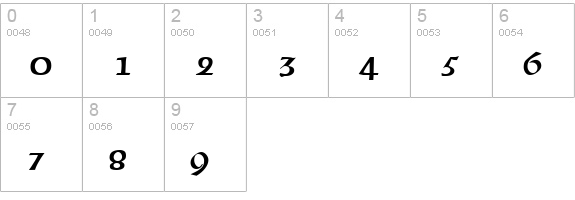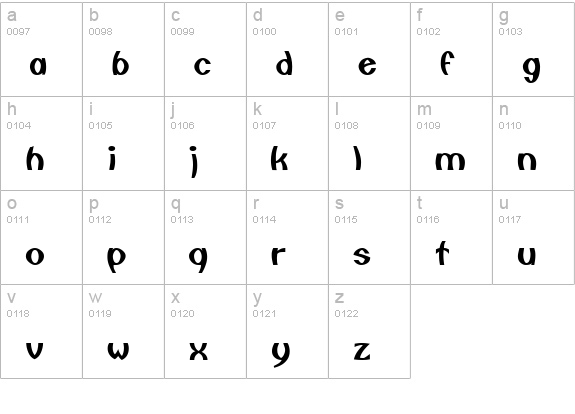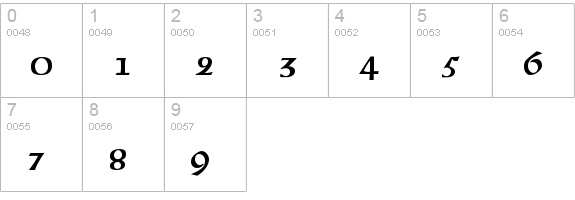
Copacabana Font Details
Copacabana font is a stylish and versatile typeface that exudes elegance and sophistication. With its clean lines and modern aesthetic, this font is perfect for a wide range of design projects, from branding to editorial design. Its sleek and contemporary look makes it ideal for creating eye-catching headlines, logos, and posters. What sets Copacabana font apart is that it is available for free download at FontsMarket.com. This means that you can easily access this high-quality font without any cost, making it a valuable addition to your font library. Whether you're a professional designer or a hobbyist looking to elevate your projects, Copacabana font is a must-have resource for creating beautiful and impactful designs.